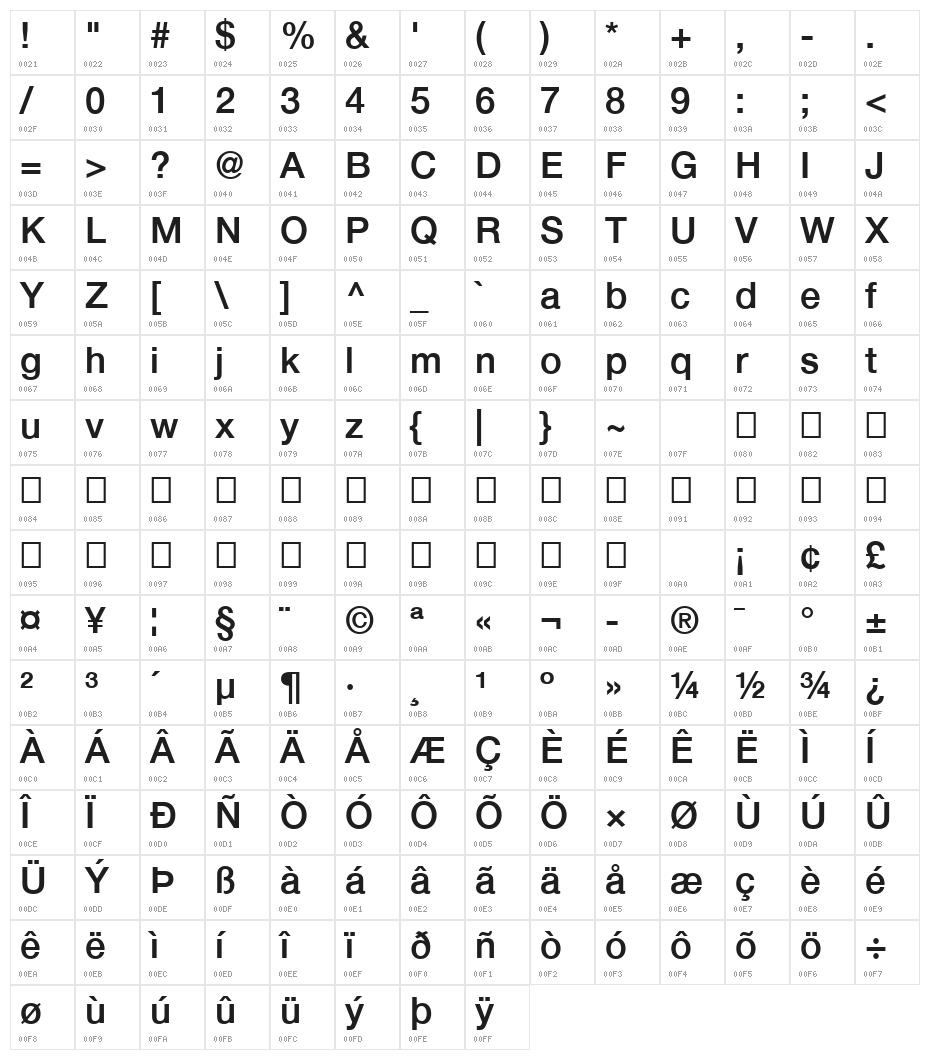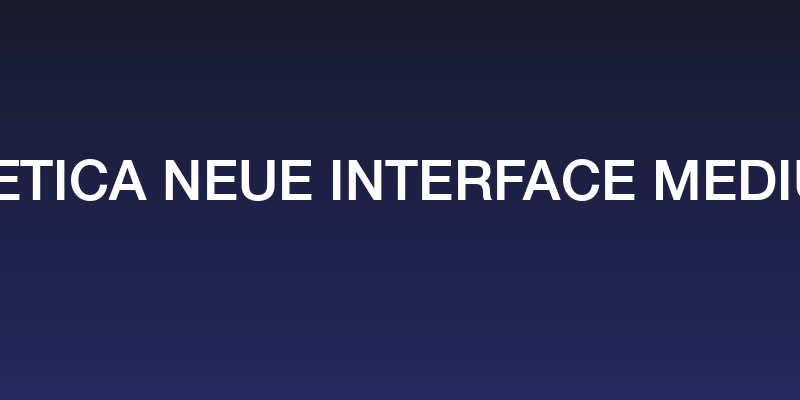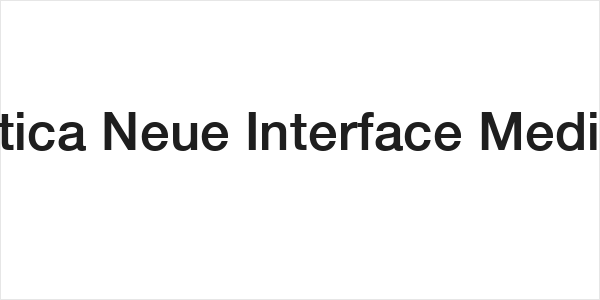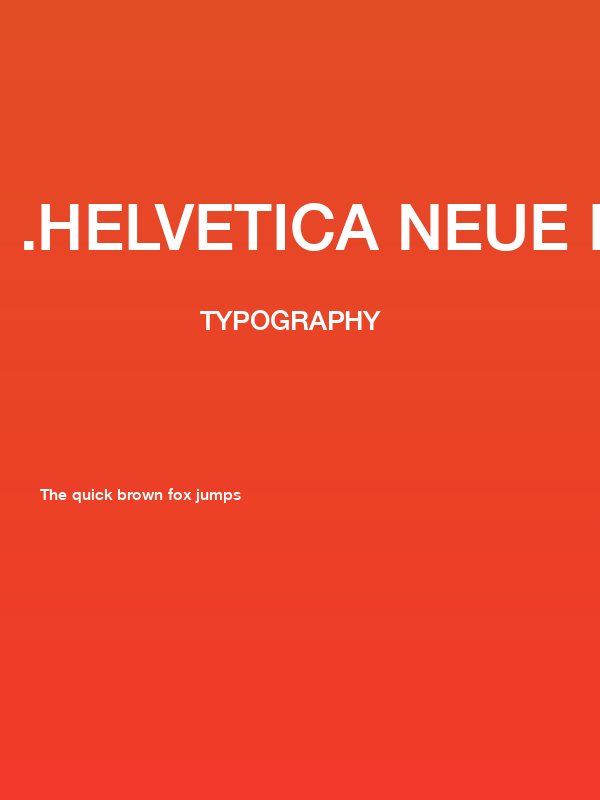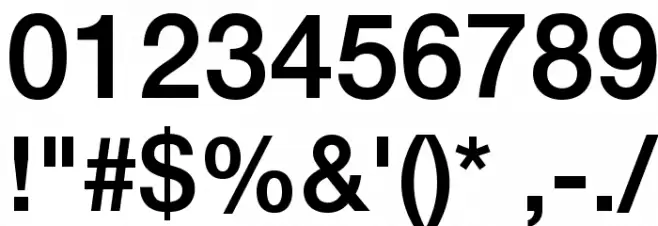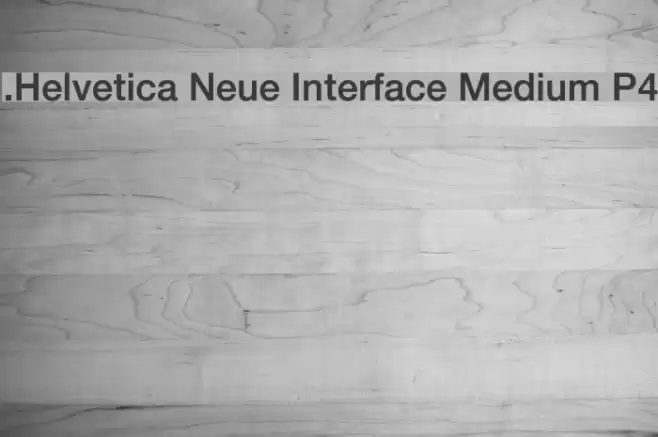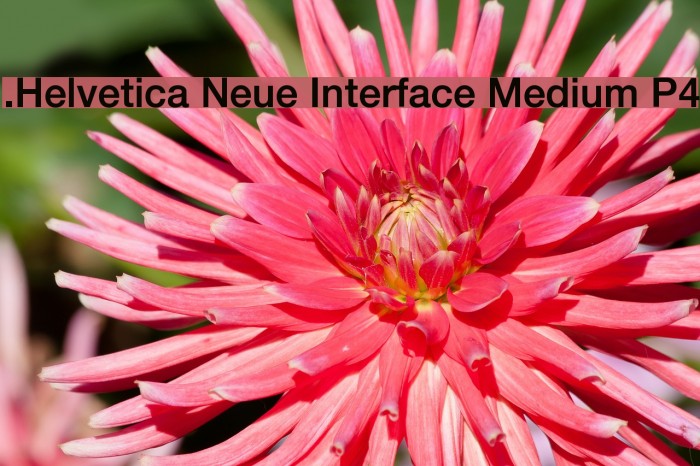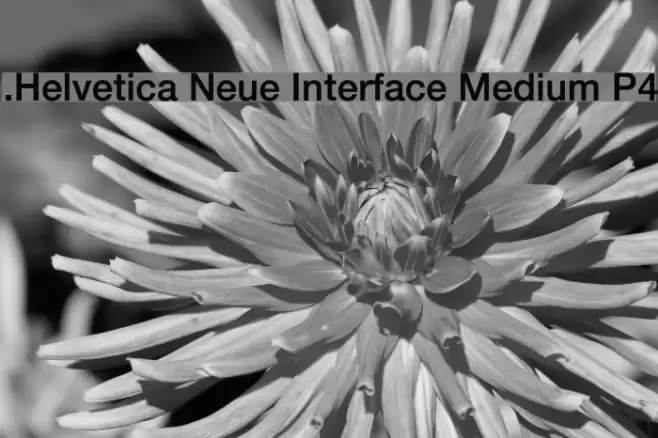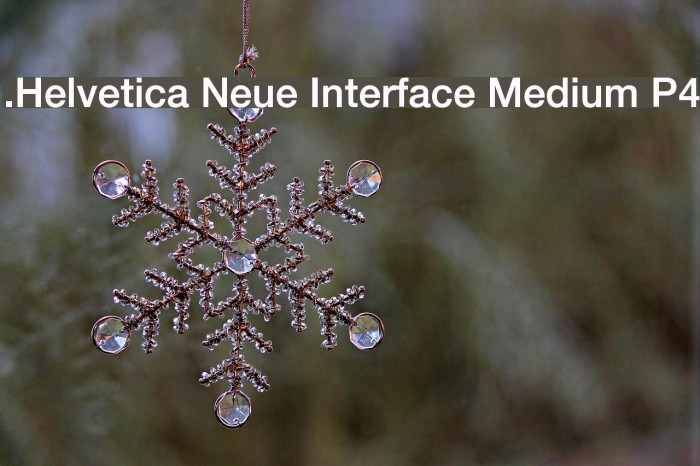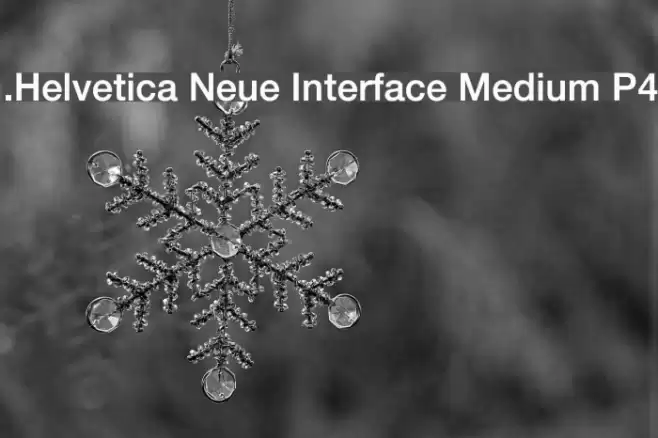
.Helvetica Neue Interface Medium P4 Font
.Helvetica Neue Interface Medium P4 Description
This font features a clean and modern design with a focus on readability and simplicity. The characters are well-proportioned, with a consistent stroke width that gives it a balanced appearance. The uppercase letters are bold and assertive, while the lowercase letters maintain a friendly and approachable feel. The numerals are clear and distinct, making them easy to read in various contexts. Special characters are designed with precision, ensuring they integrate seamlessly with the rest of the typeface. Overall, this font exudes a sense of professionalism and versatility, suitable for a wide range of applications.
| Use Case | Headlines, Body text, Logos |
| Proposed Projects | Ideal for user interfaces, corporate branding, digital content, and editorial design. |